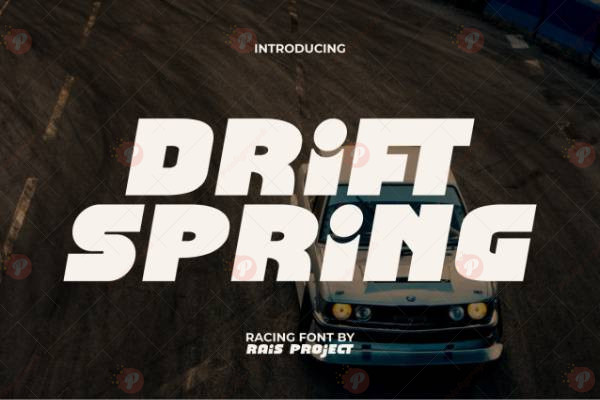
The Drift Spring Free Font is a beautiful, handwritten typeface designed to add charm and personality to your creative projects. Its flowing, playful strokes make it perfect for logos, branding, invitations, posters, packaging, social media graphics, and greeting cards.
With a modern yet handcrafted feel, Drift Spring Free Font is ideal for designers, bloggers, and creatives who want to give their projects a friendly, stylish, and elegant touch.
Font Style: Handwritten / Script / Display Typeface
Perfect For: Branding, logos, invitations, posters, social media graphics, greeting cards
✨ Give your designs a fresh, handwritten elegance with Drift Spring Free Font.